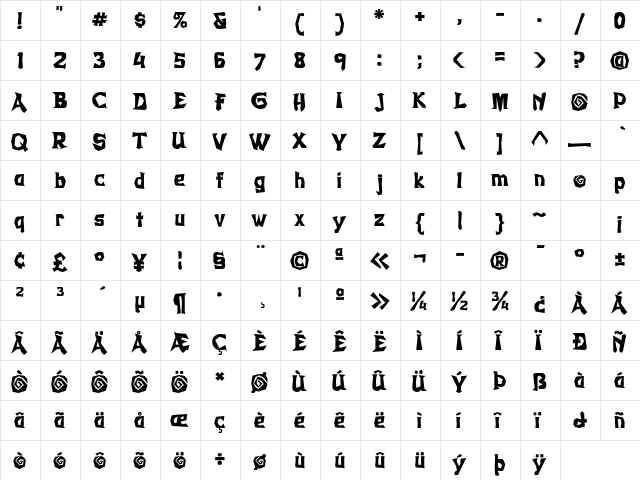
Whassis ICG Calm Regular
Design Context for Whassis ICG Calm Typeface
Whassis ICG Calm is a composed and adaptable typeface that performs quietly and consistently across a wide range of design contexts.